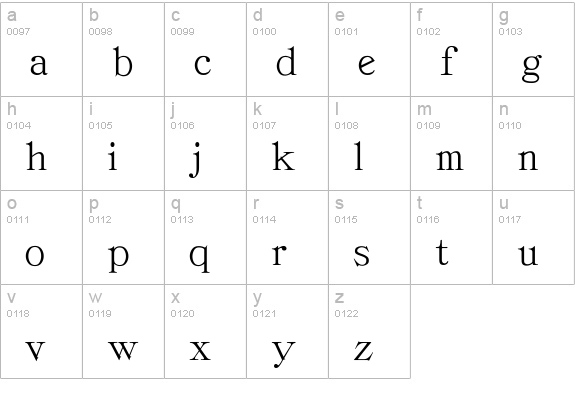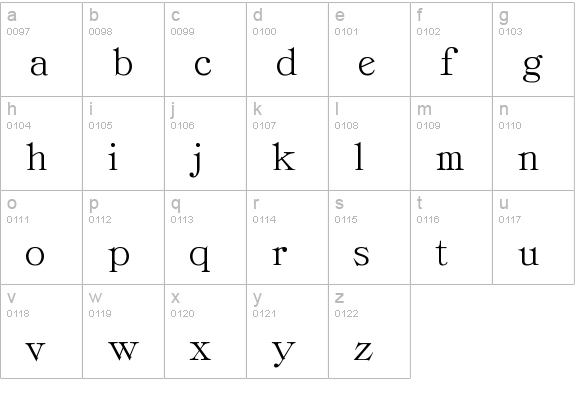
ProvLite Font Details
ProvLite font is a stylish and modern typeface that exudes elegance and sophistication. With its clean lines and sleek design, ProvLite is perfect for a wide range of design projects, from branding to editorial layouts. This versatile font is free to download at FontsMarket.com, making it accessible to designers and creatives looking to add a touch of class to their work. Whether you're crafting a logo, designing a website, or creating a flyer, ProvLite is sure to make a statement and elevate your designs to the next level. Don't miss out on this incredible font - download ProvLite today and take your projects to new heights.